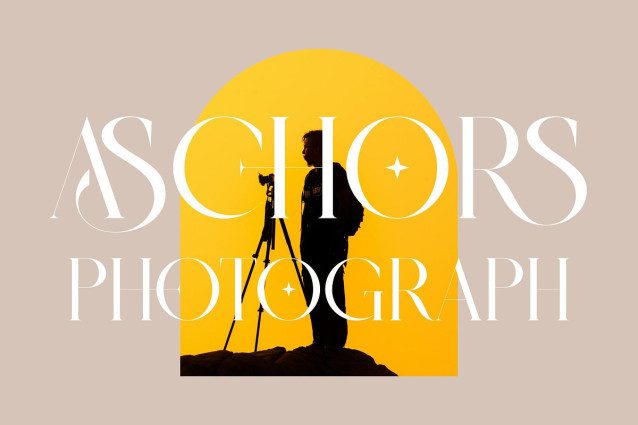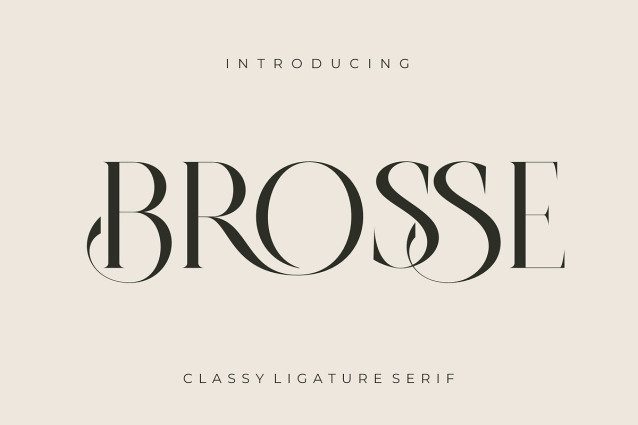
BROSSE FONT
BROSSE FONT Classy Ligature Serif inspired by the famous minimalist logo perfect for the purposes of designing templates, brochures, videos, advertising branding, logos, invitation, layout design, elegant crafting, beauty design and other